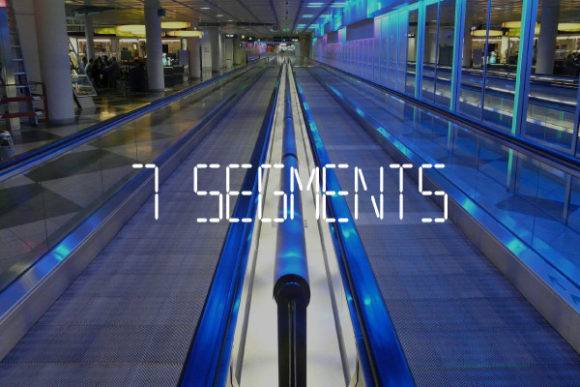
7segments Font for Headlines, Posters and Branding Projects
This is a display font styled after classic seven-segment digital readouts. It features geometric, angular characters reminiscent of vintage digital clocks and calculators, making it perfect for futuristic or tech-themed branding and poster design.
As a font entity, 7segments delivers strong typographic structure for use in modern branding, signage, and large-format design applications. It enhances visibility and gives a digital-meets-retro look that resonates in both tech and creative niches.
Great for creating standout headlines, event graphics, and product mockups, this typeface bridges utility with a bold thematic edge. Its versatility makes it an ideal choice for both digital and print applications, ensuring that your message captures attention effectively. Additionally, you can explore various abstract font options for headlines, allowing for personalization that aligns with your brand identity. This typeface not only enhances aesthetic appeal but also reinforces the impact of your visual communication.
- Unique seven-segment digital design
- Bold and readable for posters and branding
- Ideal for futuristic or tech-themed projects
Q: What is a seven-segment font?
A: It’s a typeface designed to mimic the style of LED digital displays, using segmented lines to form each character.
Q: Why do some characters look incomplete?
A: That’s intentional. Seven-segment fonts replicate digital readouts, where characters are built from basic segmented lines.